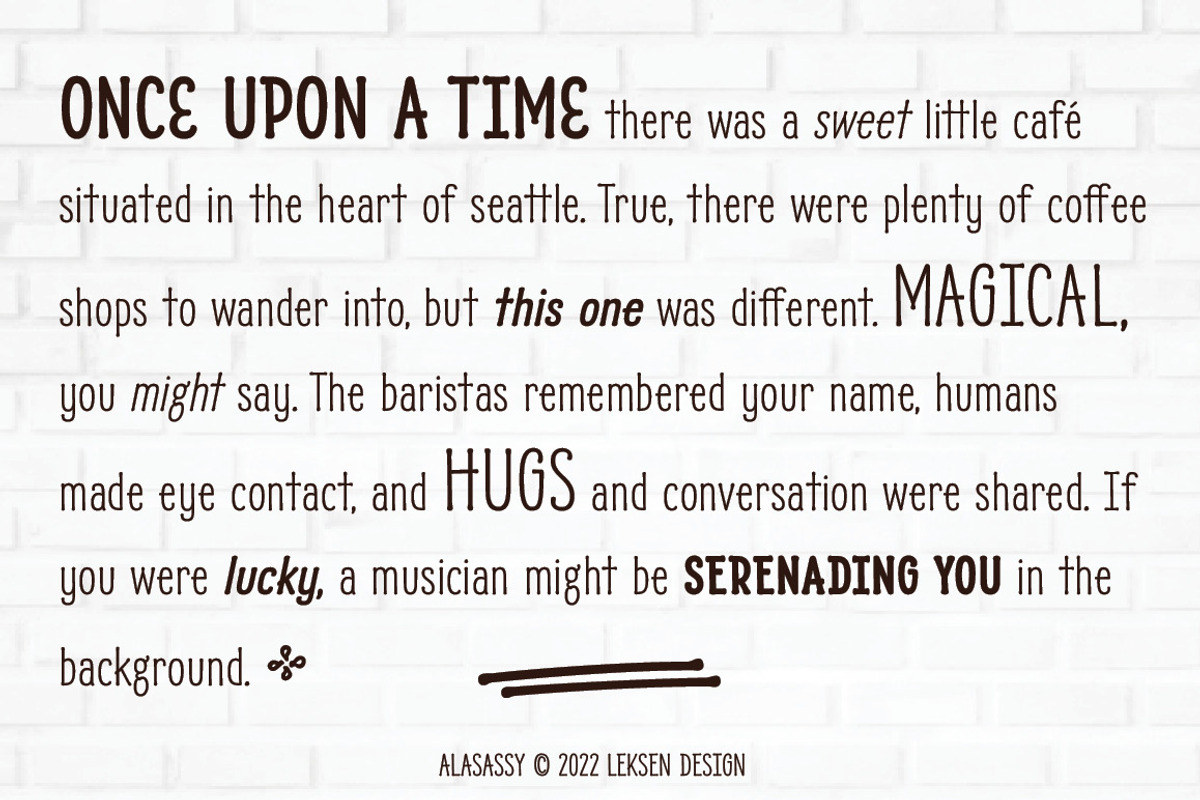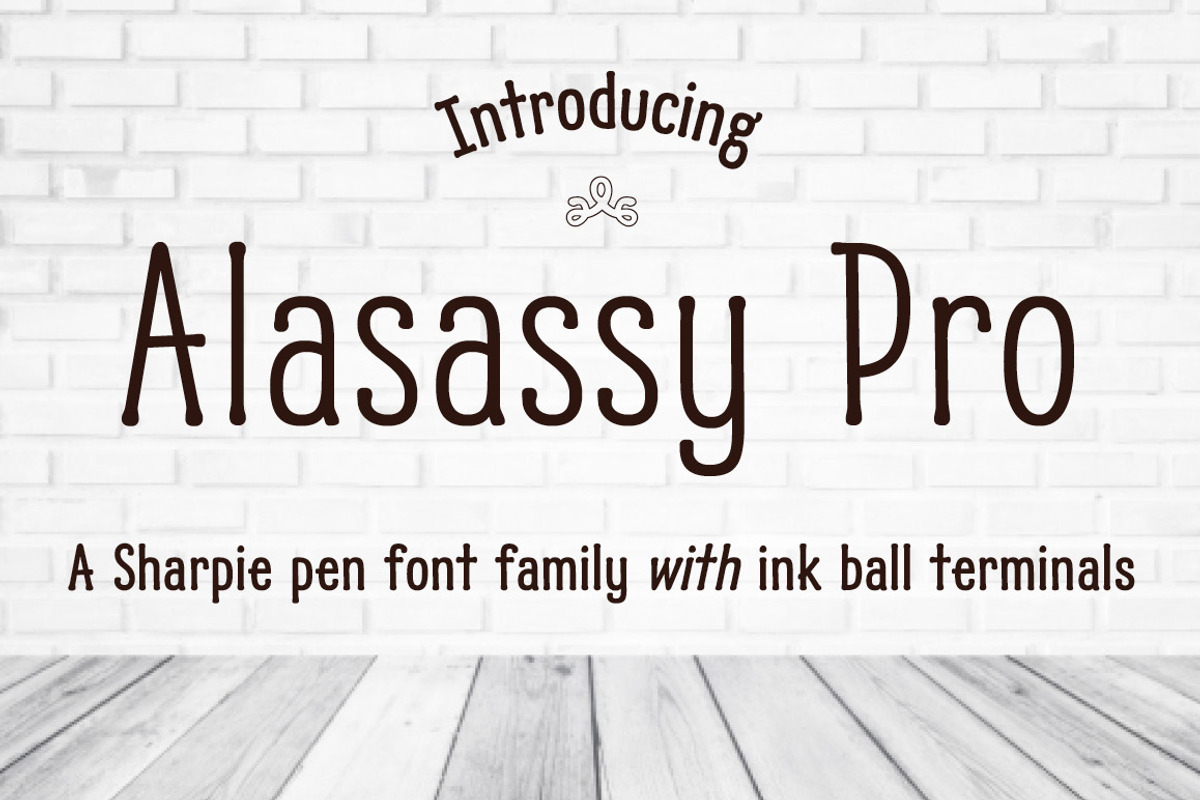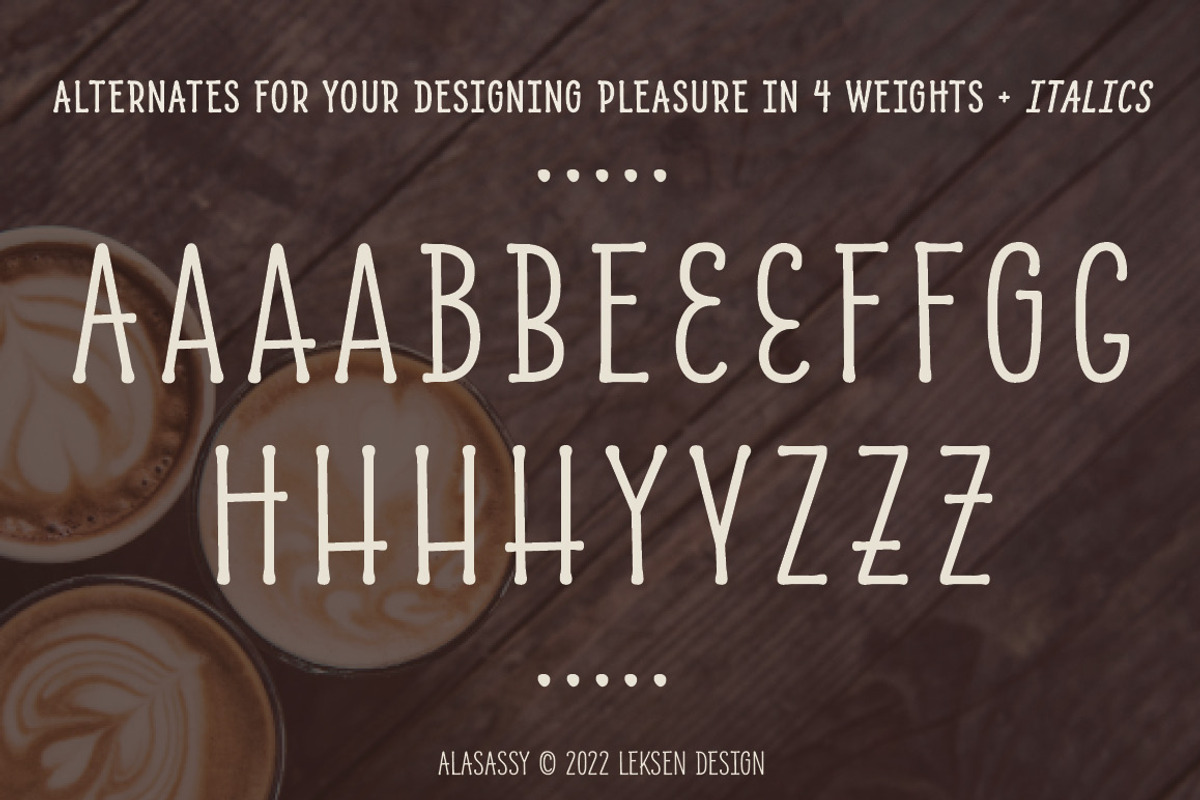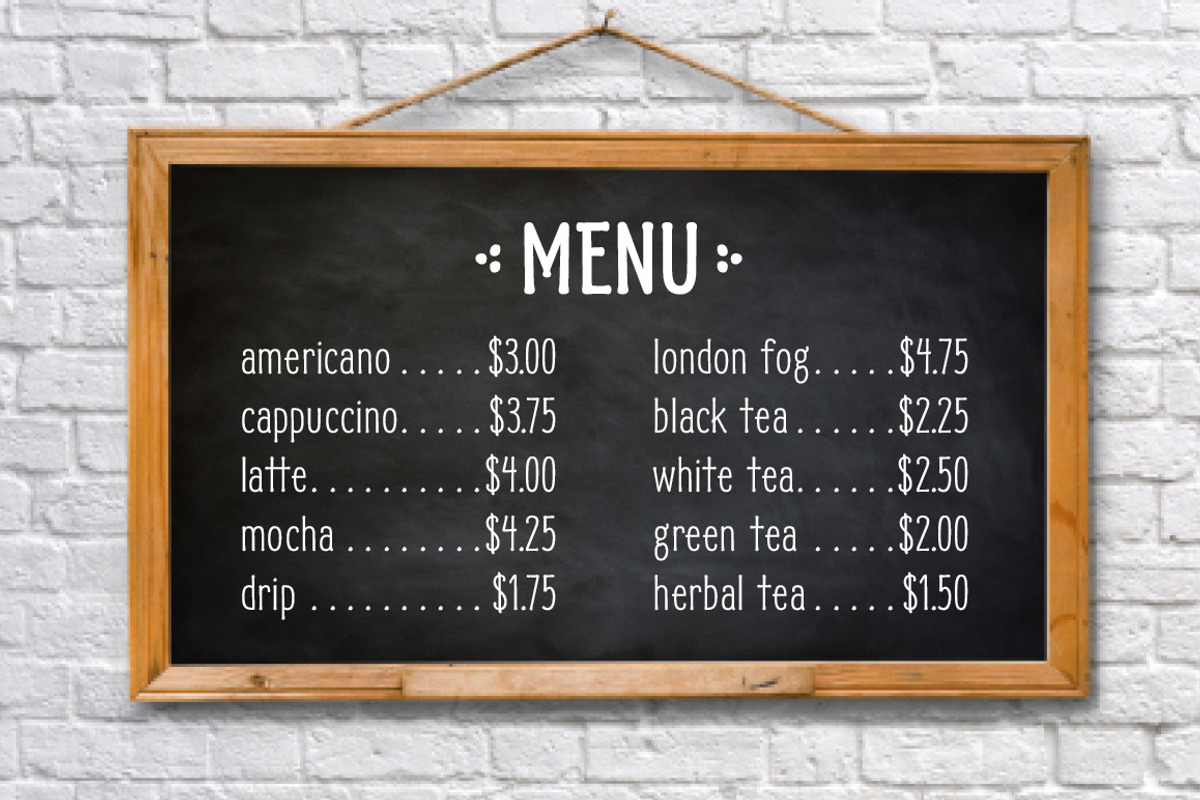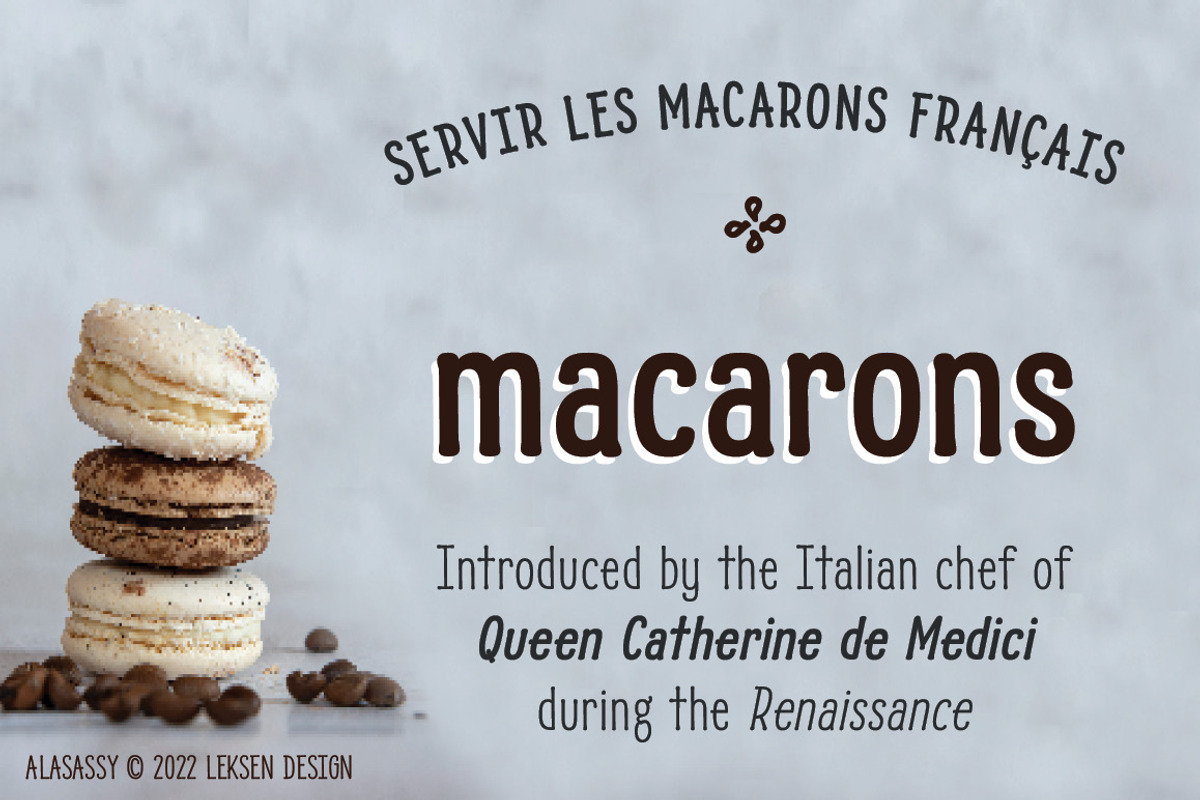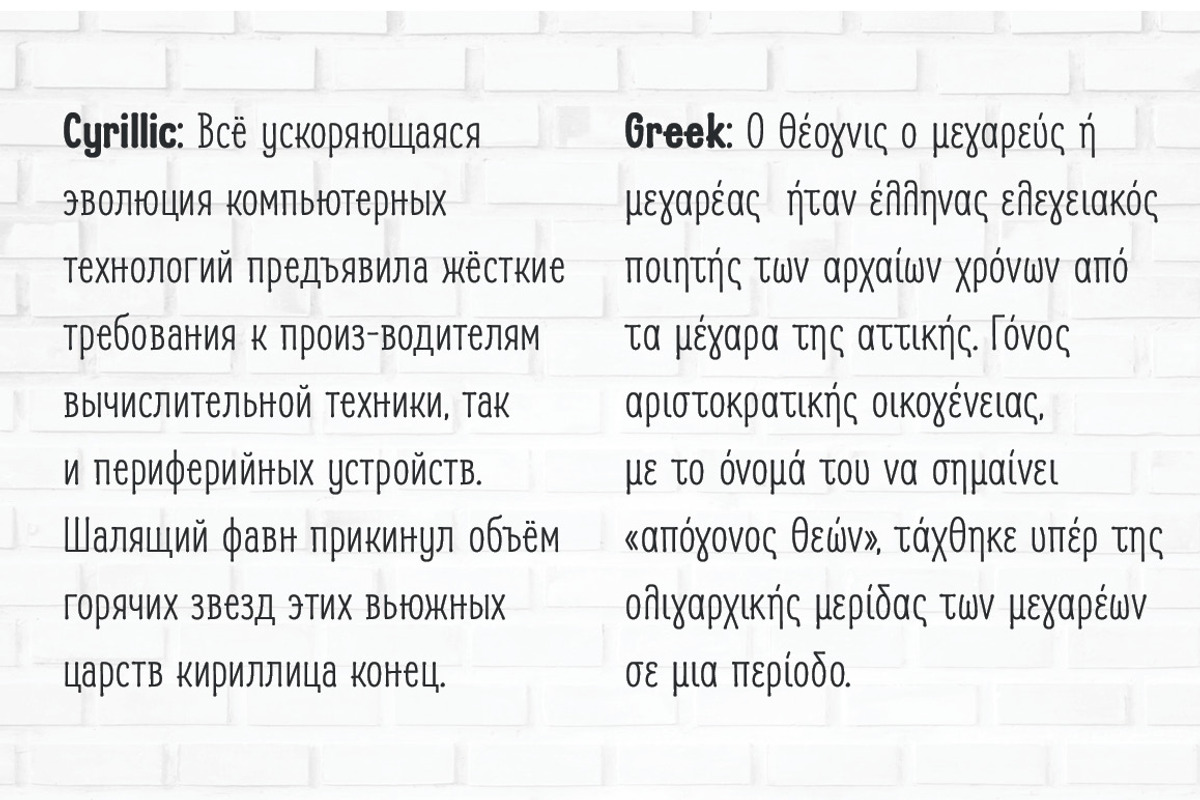
Alasassy Pro
Alasassy is a font inspired from Sharpie pen drawings, featuring ink ball terminals. The Alasassy Pro versions have more language support including Greek and Cyrillic. The Alasassy Caps version features a mix of uppercase and lowercase letters that share the same cap height and baseline. There are several alternate characters with a mix of high and low crossbars as well as crossbar overhang options and language support for each.
This display font will bring some zest to your logo, signage, packaging design or large titles on book covers or advertising. It is a great combination of an organic, hand drawn feel but still clean and crisp enough to look professional. Enjoy!